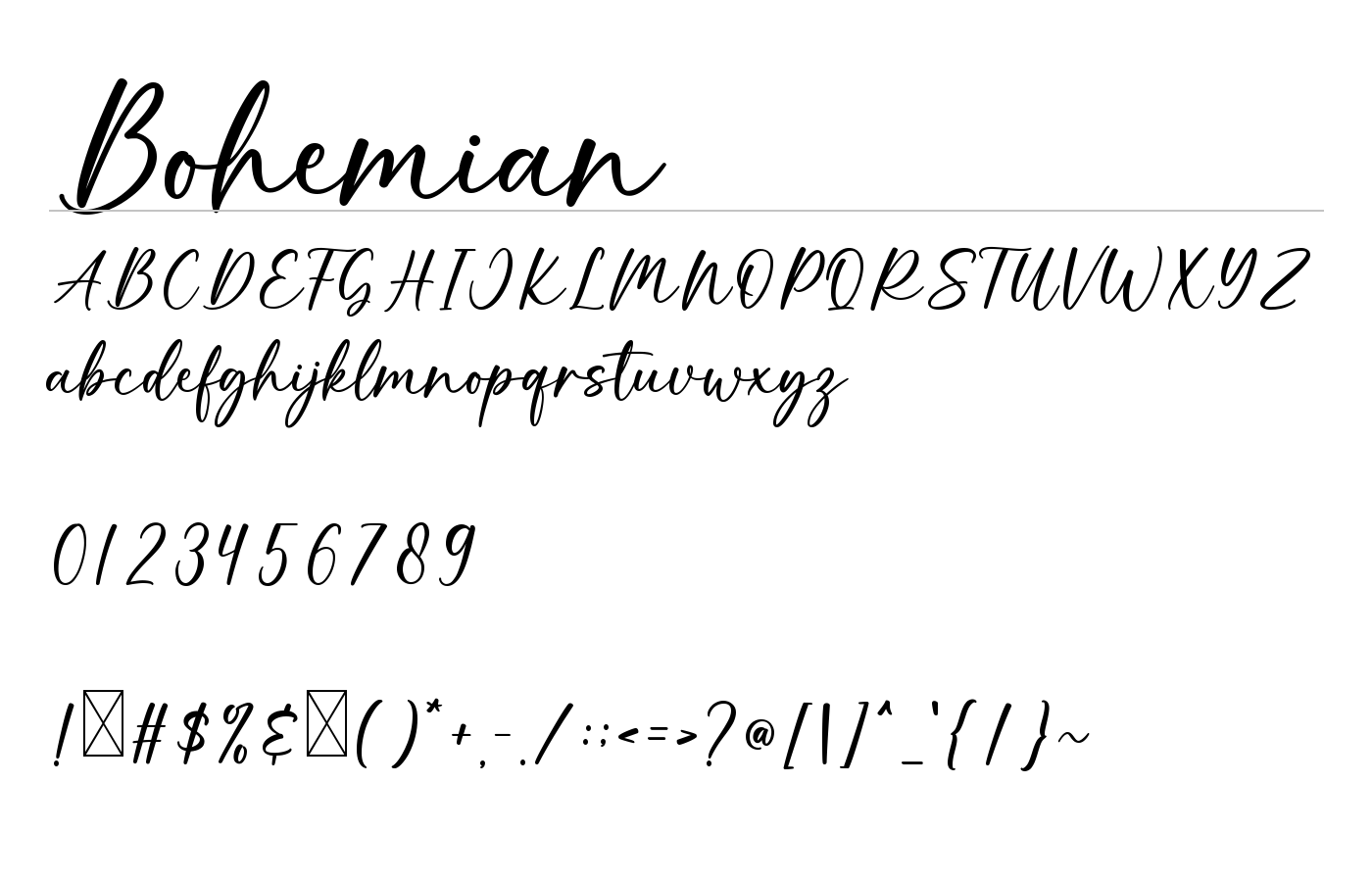
Bohemian is a delicate and flowing script font that combines elegance with a casual, handwritten charm. Its slender, slightly slanted letterforms and smooth curves make it perfect for adding a personal, artistic touch to invitations, branding, and stylish editorial designs. This font's graceful style works best in large sizes for headlines or logos where its character and fluidity can truly shine.
Bohemian Font
About Bohemian Font